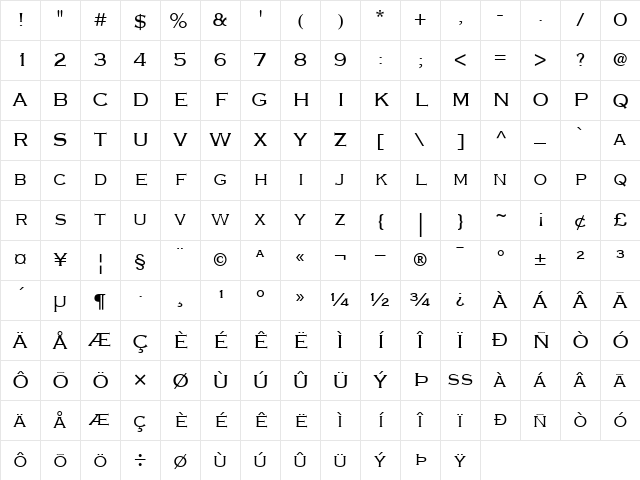
CopperplateGothicThirty-TwoBC takes a clean, functional approach - its unadorned letterforms prioritise legibility and work reliably across screen and print environments.